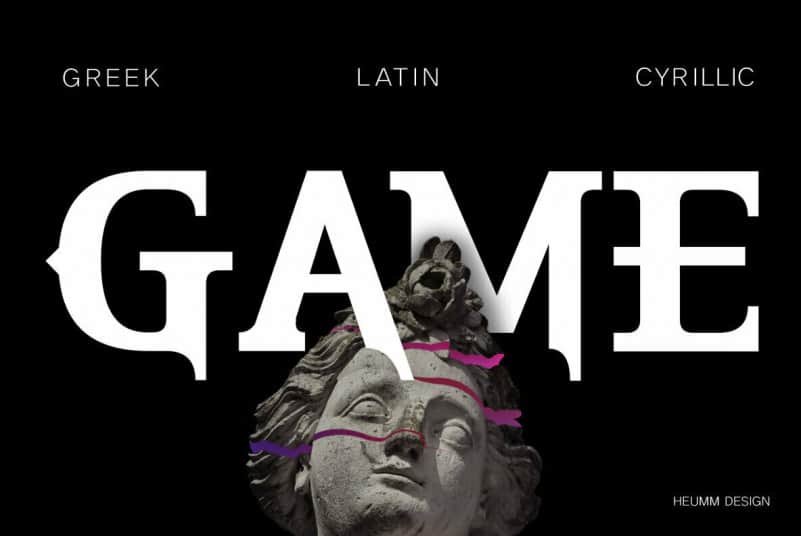
Hu The Game Font
Hu The Game Serif Font is a modern and chic serif font family consisting of 3 different weights. We got motif from cruel games and reflected scary and horrifying impression in it. The edge of strokes is sharp, which makes you remind of the design of Black Letter of Middle Age. It especially goes well with special festivals like Halloween, so it would be helpful for you to make any images related to them.